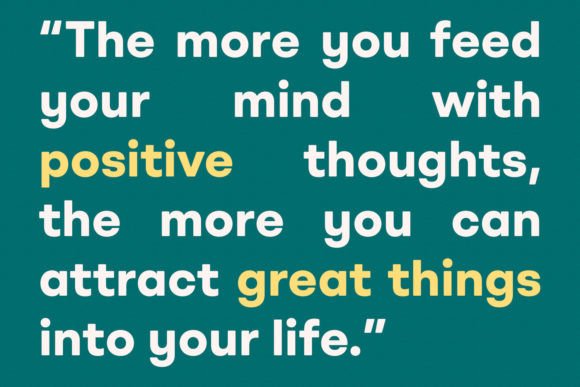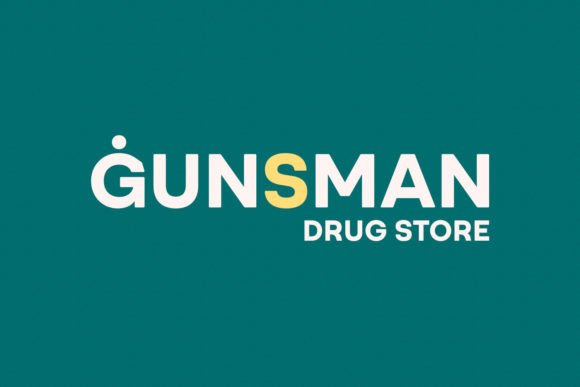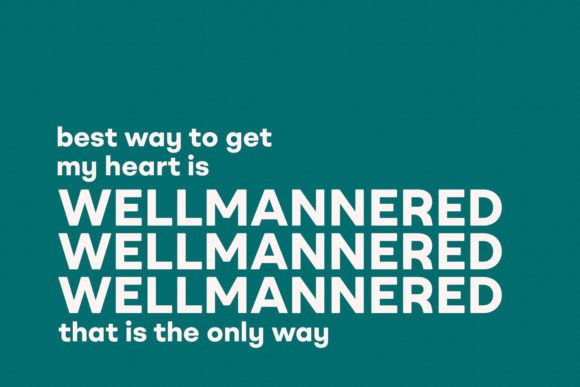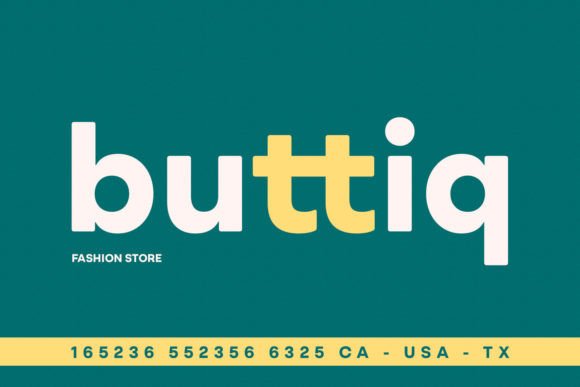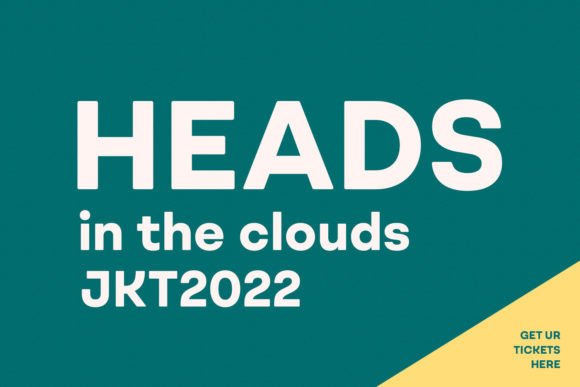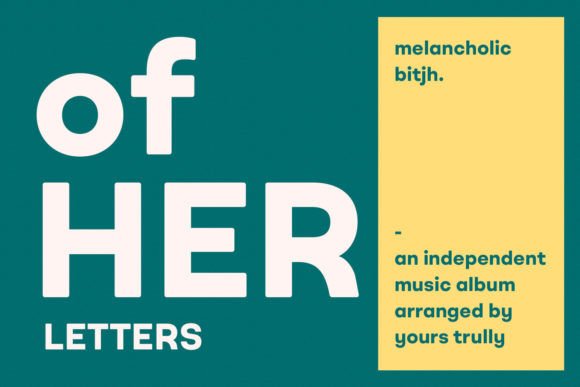
Introduction to Khorla Font
As designers, we’ve all been there – staring at a blank page, searching for the perfect font to bring our creative project to life. And then, it happens – you stumble upon that one font that makes everything click. For many, that font is Khorla Font, a simple yet elegant sans serif font that has been making waves in the design community.
With its soft edges and fun character, Khorla Font is more than just a font – it’s a design resource that can elevate your work from good to great. Whether you’re designing a logo, creating social media graphics, or writing a book title, Khorla Font is a versatile choice that can add a touch of sophistication to any project.
Key Features of Khorla Font
- Khorla Font is available in a single weight, making it suitable for a wide range of design applications.
- The font is designed with a modern aesthetic, featuring clean lines and a minimalist approach.
- Khorla Font is a great addition to any design project, offering a unique and creative touch.
Honest Review: Khorla Font
As a designer, I’m always on the lookout for high-quality fonts that can elevate my creative projects. Recently, I stumbled upon the Khorla Font, and I’m excited to share my honest review with you.
- ✨ The font has a unique, modern aesthetic that’s perfect for a variety of creative projects, from branding and advertising to editorial and publishing.
- ⚠️ While the font is high-quality, it may not be suitable for more traditional or classic design projects.
- ⚠️ The font’s modern aesthetic may not appeal to designers who prefer more conservative or timeless design styles.
Overall, I’m impressed with the Khorla Font. Its unique aesthetic and transparent background make it a valuable design resource for designers working on modern, creative projects. While it may not be suitable for every project, I would definitely recommend it to designers looking for a high-quality, free font.
Tips for Getting the Most Out of Khorla Font
The Khorla Font is ideal for a variety of design projects, including social media graphics, presentations, posters, logos, brochures, business cards, and documents. Its high-quality design makes it a popular choice for designers and non-designers alike.